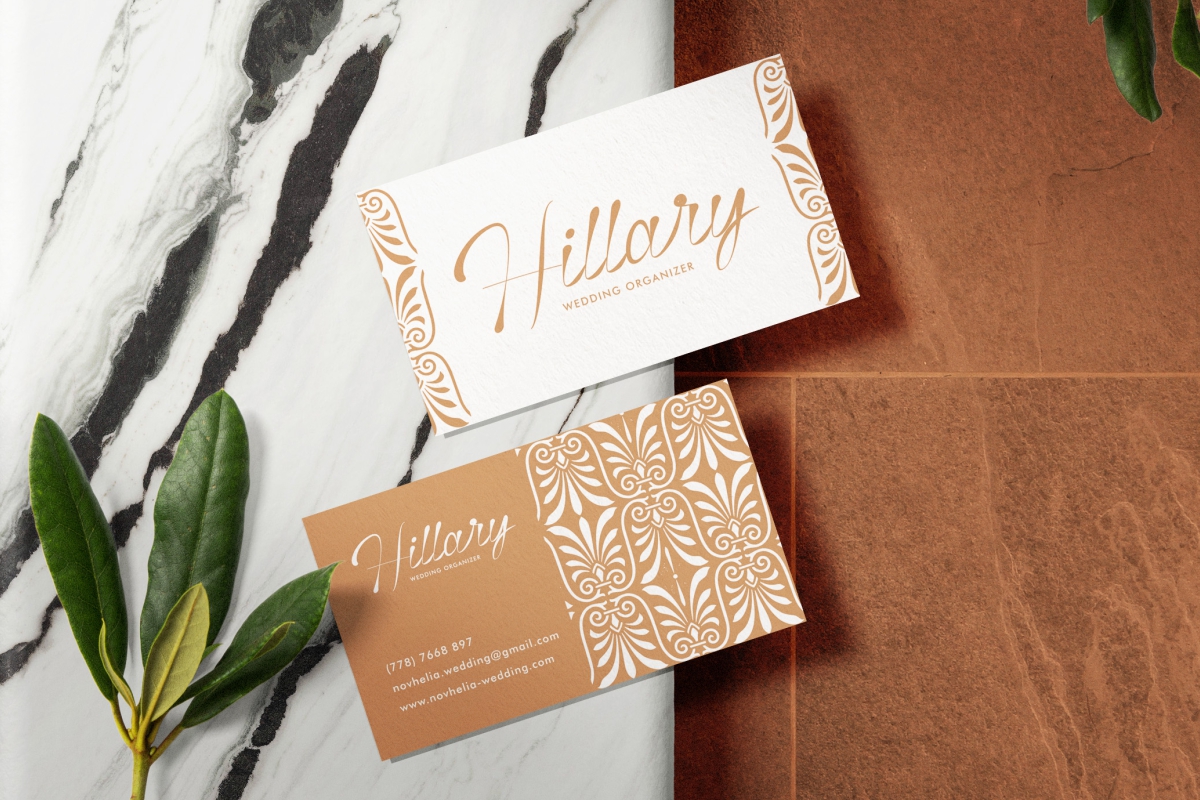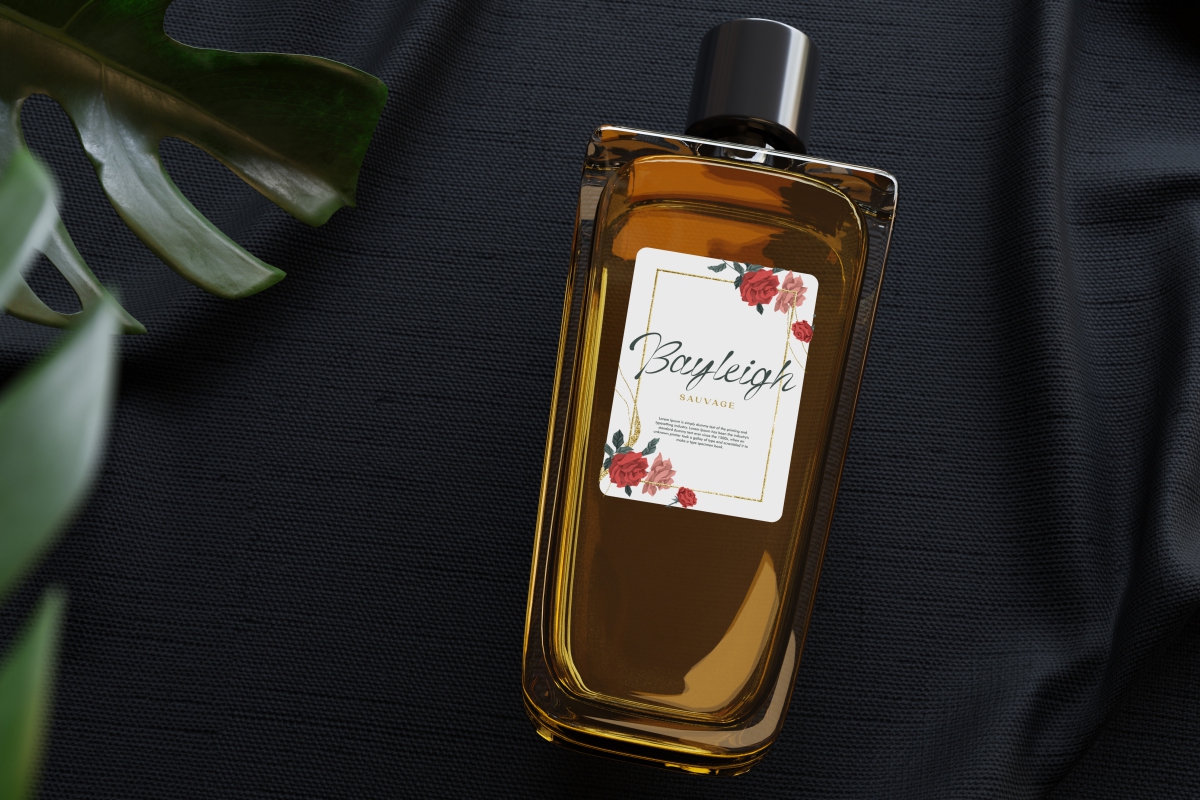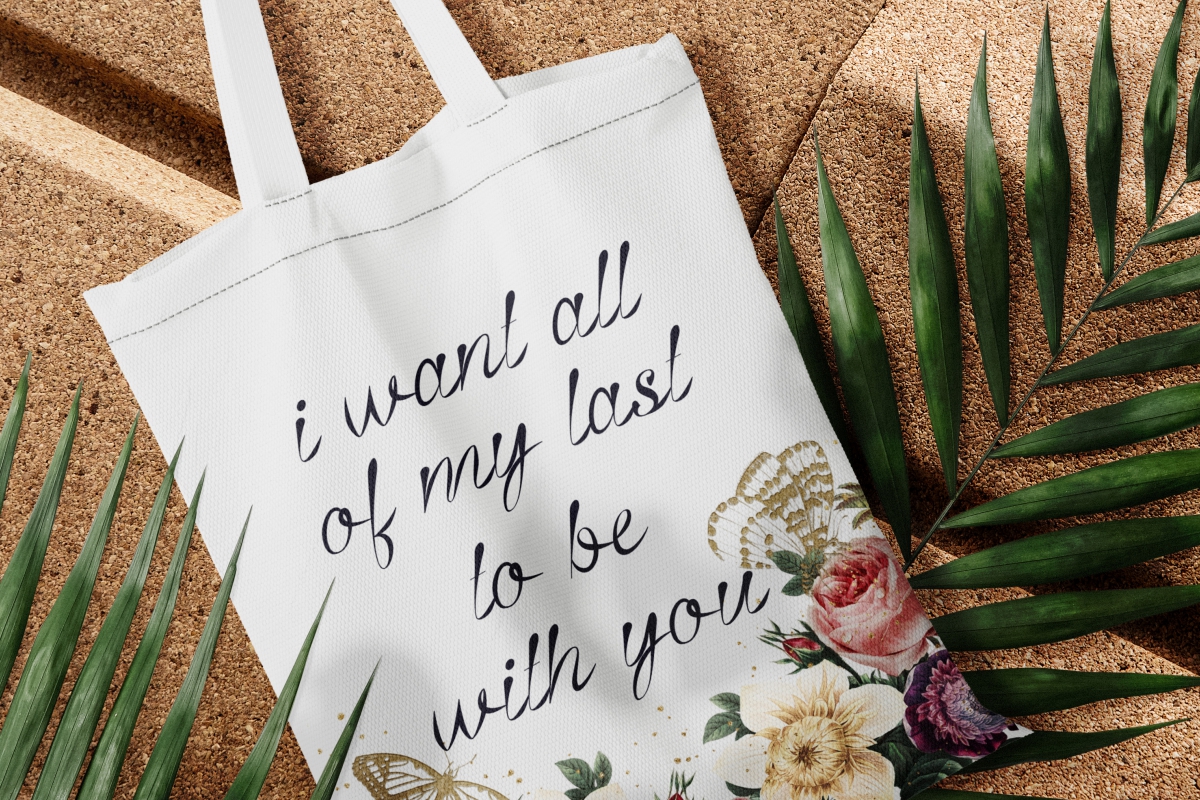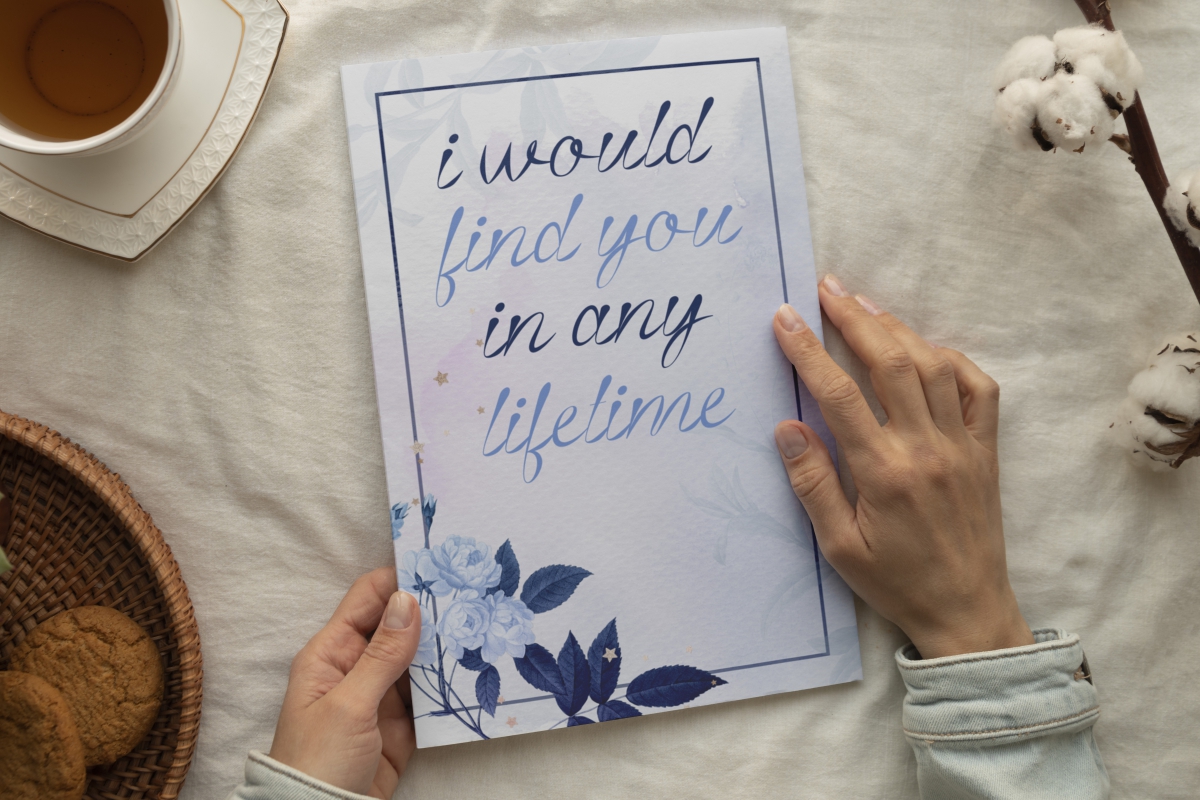
Georgia Joy Font
Georgia Joy Script Font
This is a beautiful handwritten script font with casual look created by CalligraphyFonts, inspired by cursive writing of the nobles in European countries. This font is perfect for your creative projects such as brochure, business card, creating logo, headline, label, letterhead, printed design, product packaging, quotes, title, etc.